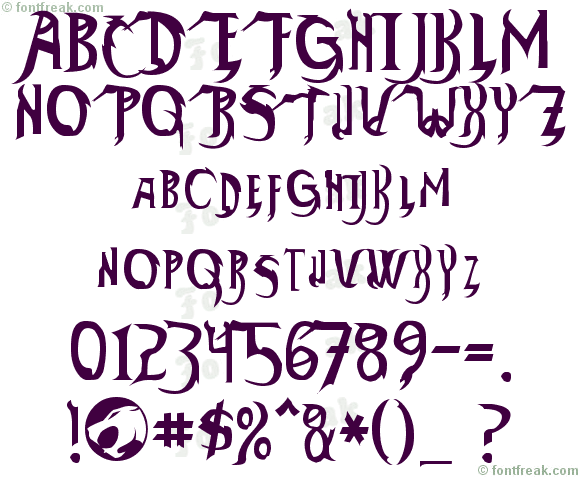
Thundercats Normal
About Thundercats
The Thundercats font, created by Neale Davidson, is a striking display typeface that embodies a playful yet adventurous spirit. This font features a unique blend of sharp angles and rounded edges, making it visually appealing and dynamic. The stroke weight is varied, with bold lines that create a strong presence, while the overall design showcases a moderate contrast that enhances readability. The spacing between characters is thoughtfully balanced, allowing for an engaging flow that captures attention without overwhelming the viewer.
Ideal for creative projects, the Thundercats font excels in various applications. It is particularly well-suited for designing movie posters that aim to evoke nostalgia and excitement, especially for projects inspired by adventure or fantasy themes. Additionally, it can be effectively used in merchandise branding, such as T-shirts or stickers, appealing to fans of animated series and playful designs. Its whimsical style also lends itself to children’s book covers and educational materials, where a fun and approachable look is essential. Moreover, the font can enhance event promotions, such as comic conventions or themed parties, inviting attendees with its vibrant character.
What sets the Thundercats font apart is its ability to merge nostalgia with modern design elements, making it both timeless and trendy. This versatility allows it to shine in a variety of contexts, ensuring that any project utilizing it will stand out. Don’t miss the chance to explore the Thundercats font free download and elevate your creative endeavors with this distinctive typeface.